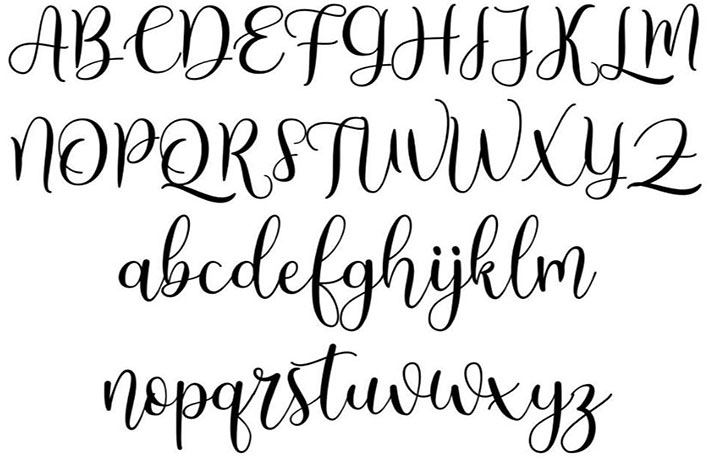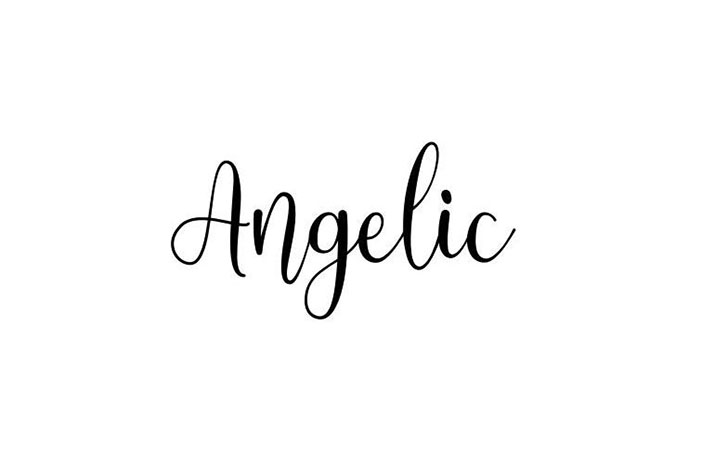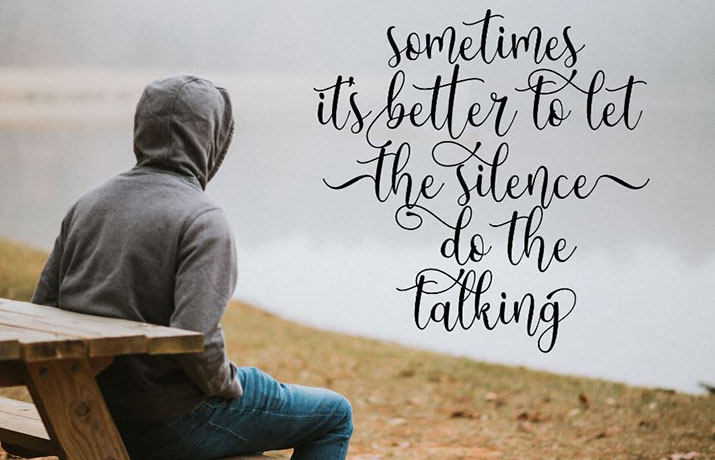
Angelic Font is a script calligraphy typeface with a fresh and modern bouncy style of letterforms. It was designed and published by Doehantz Studio.
Its texture has been created with excessive curves, thin lines, and open letterforms that the designer put inside and outside each letter. Also, the flourishes and swashes of this font add more uniqueness throughout the typeface.
The font is light and airy and has flowing curves giving a modern and eye-catching look. You can use it for wedding & greeting cards, invitations, posters, special quotes, signatures, branding, and more.
“The angelic typeface comes in a single style that possesses both OTF and TTF formats. This single style contains 240 glyphs, 6 ligatures, numbers, symbols, and a few punctuation marks. Moreover, it also supports 34 languages.”
Style:Script, Calligraphy, Typeface
• The elegant appearance of this material makes it suitable for a wide range of stylish applications, including logos, emblems, signatures, signs, t-shirt printing, movie posters, game graphics, special cards, t-shirts, magazines, books, greeting/wedding cards, banners, invitations, birthday cards, headers, letterhead, signage, labels, news, posters, card printing, signatures, shopping bags, brand logos, and product packaging.
What is Angelic Font?
Angelic Font is a script calligraphy typeface with a fresh and modern bouncy style of letterforms. It was designed and published by Doehantz Studio.